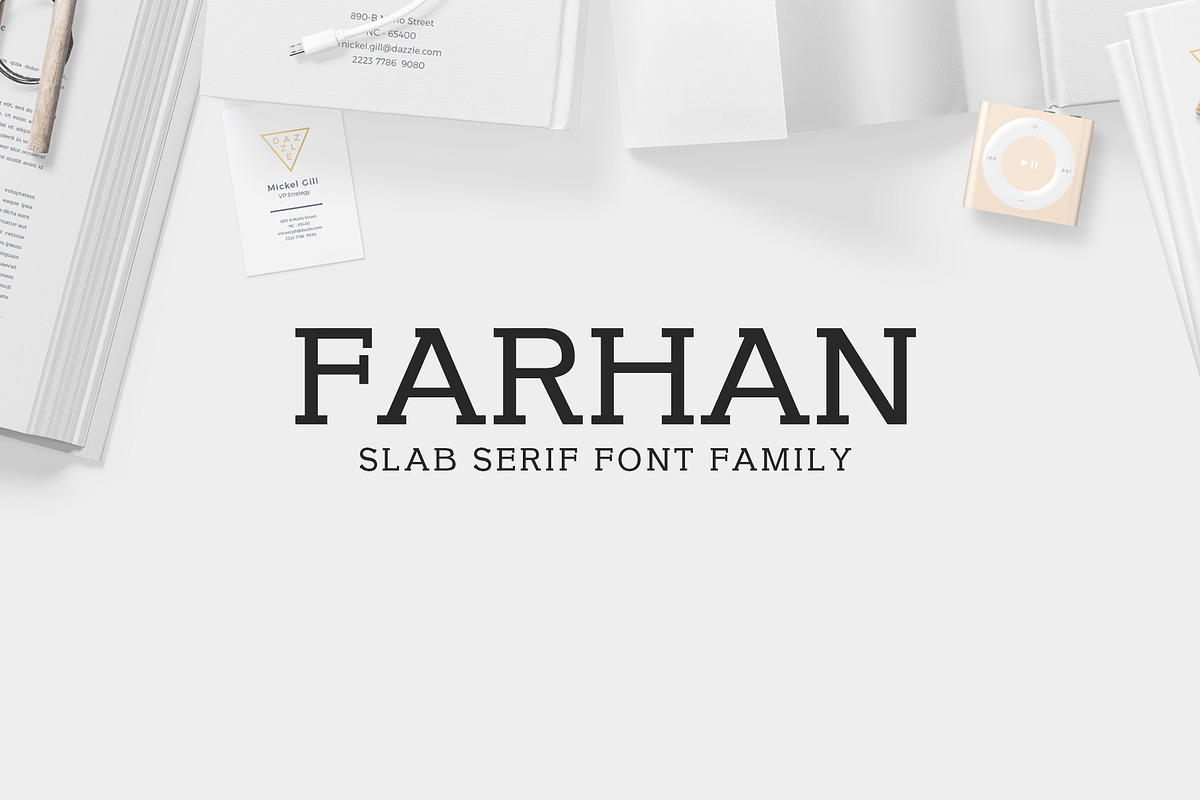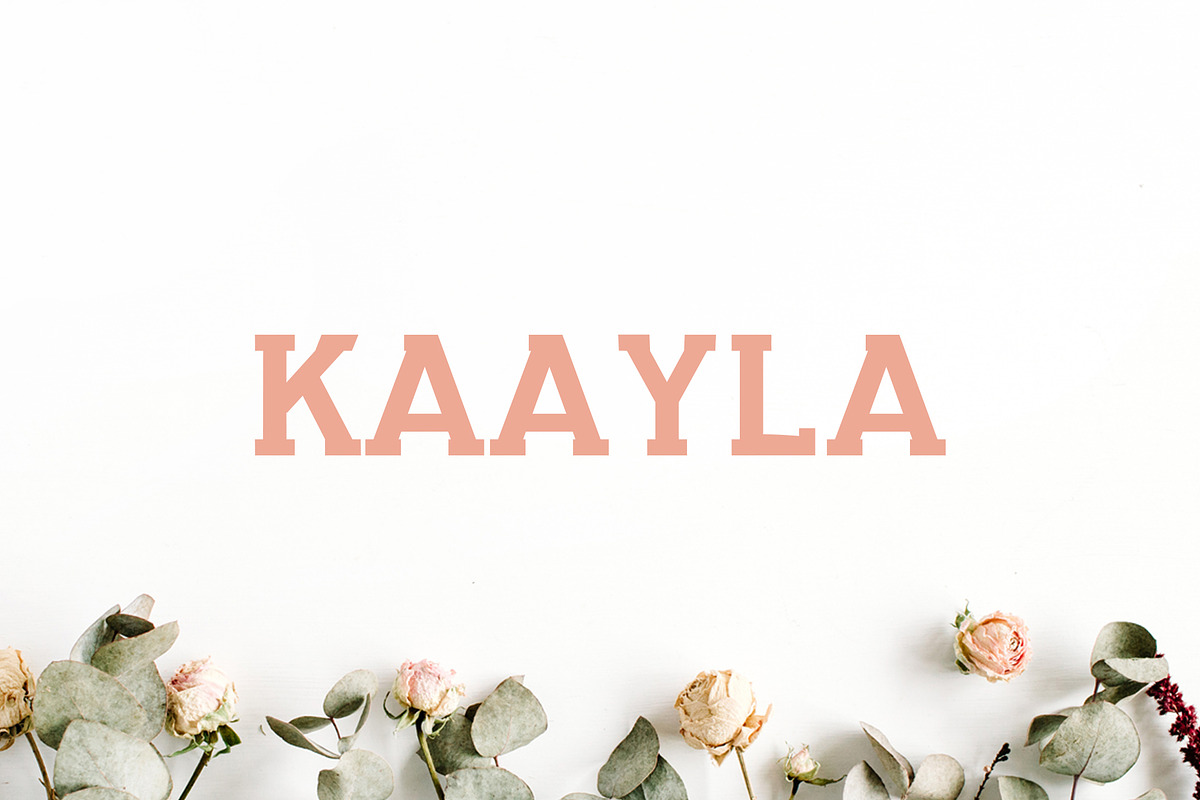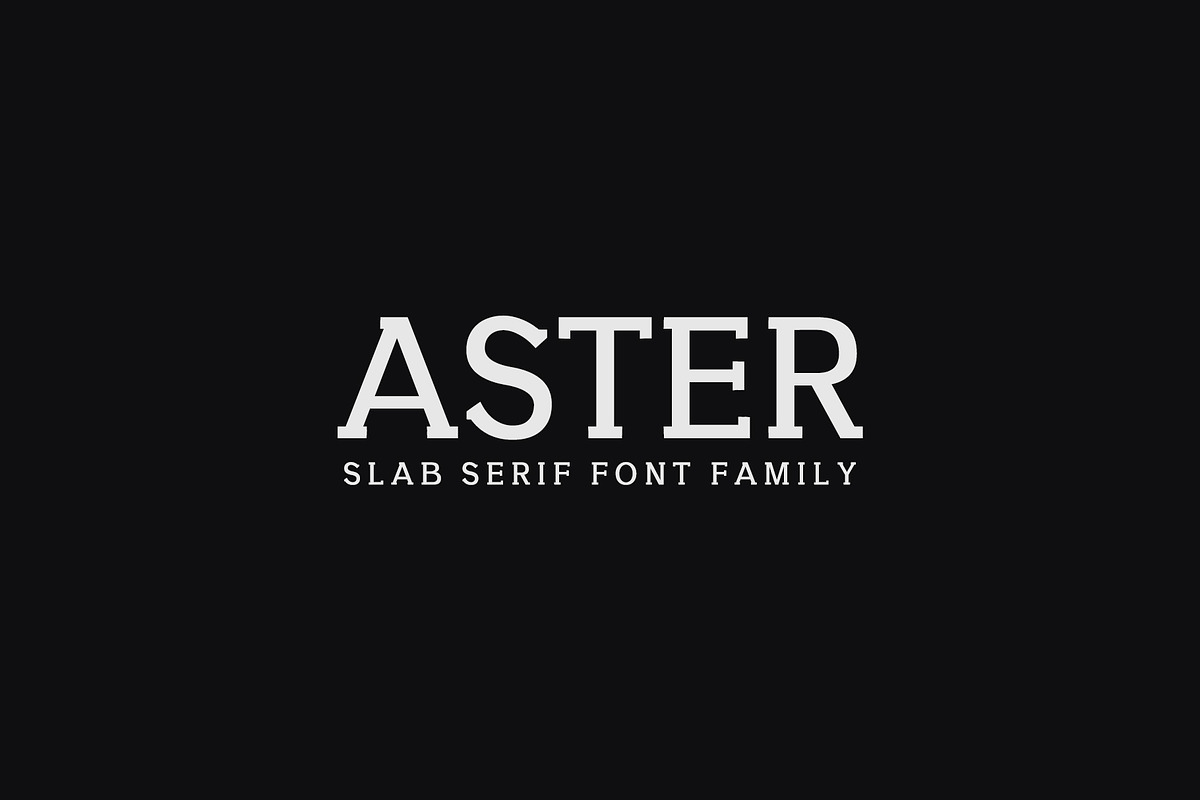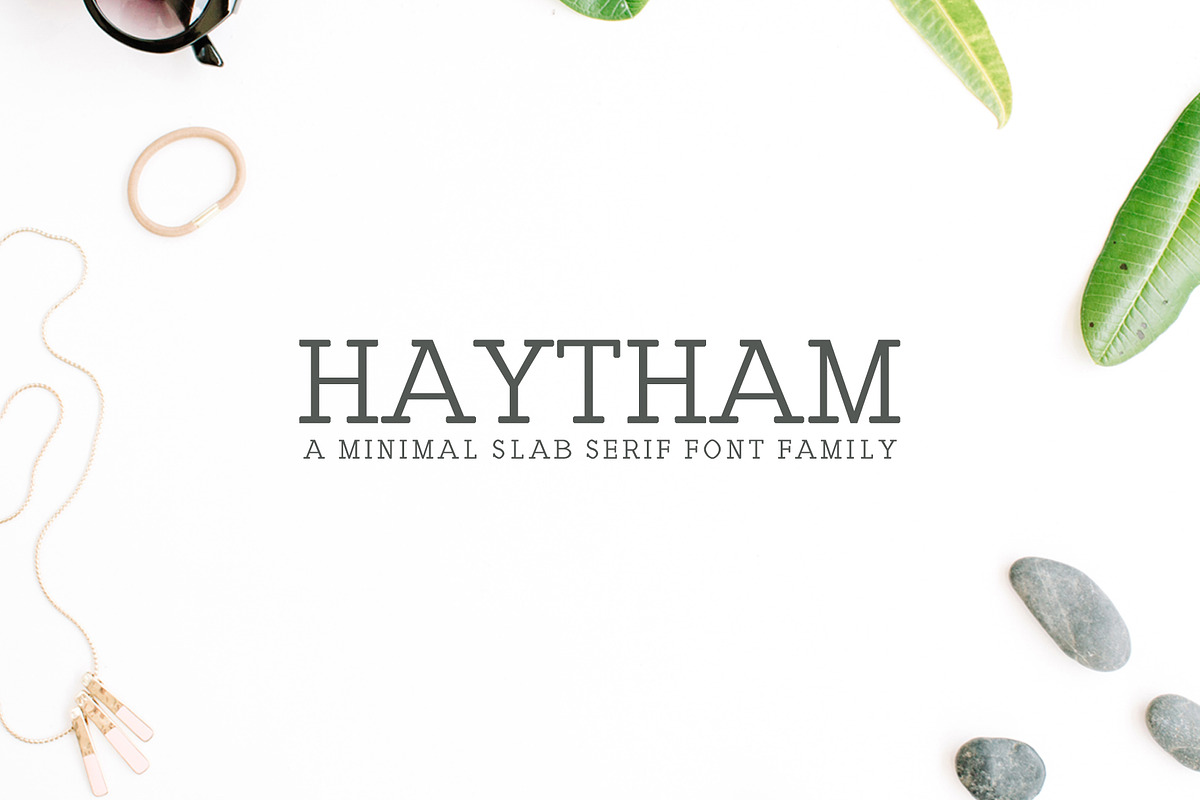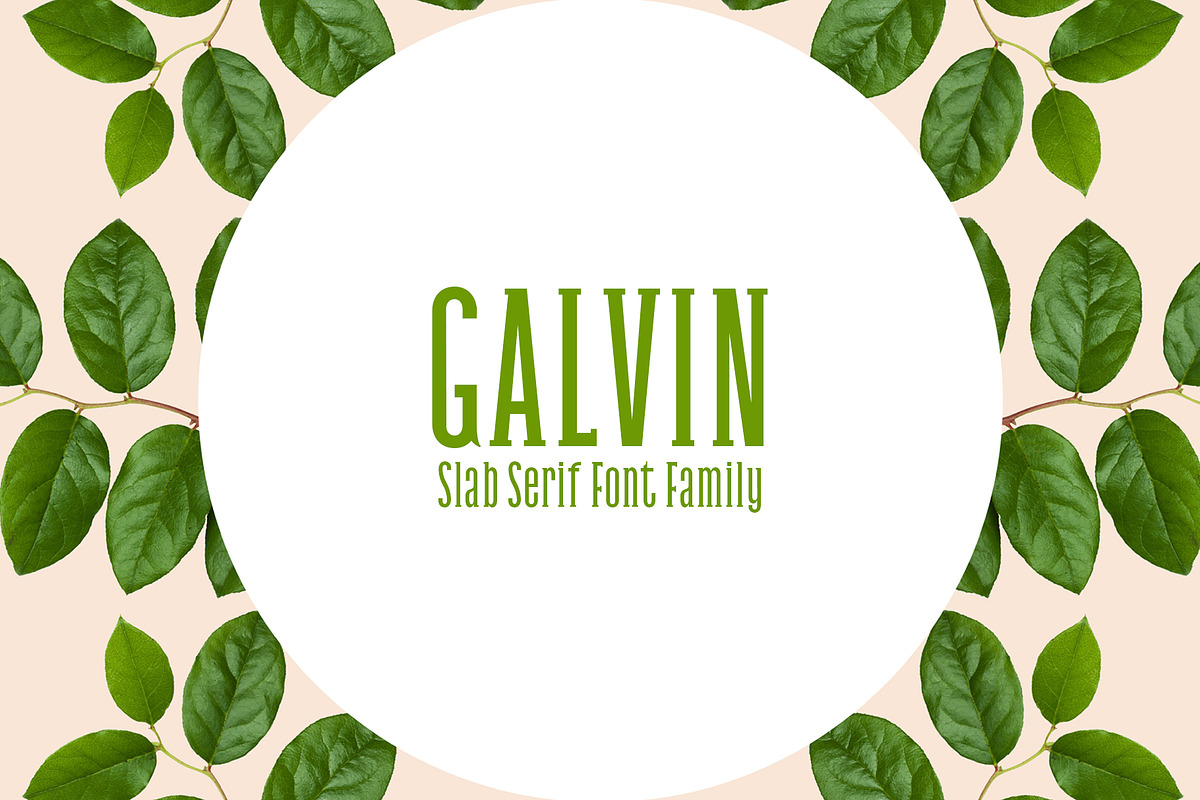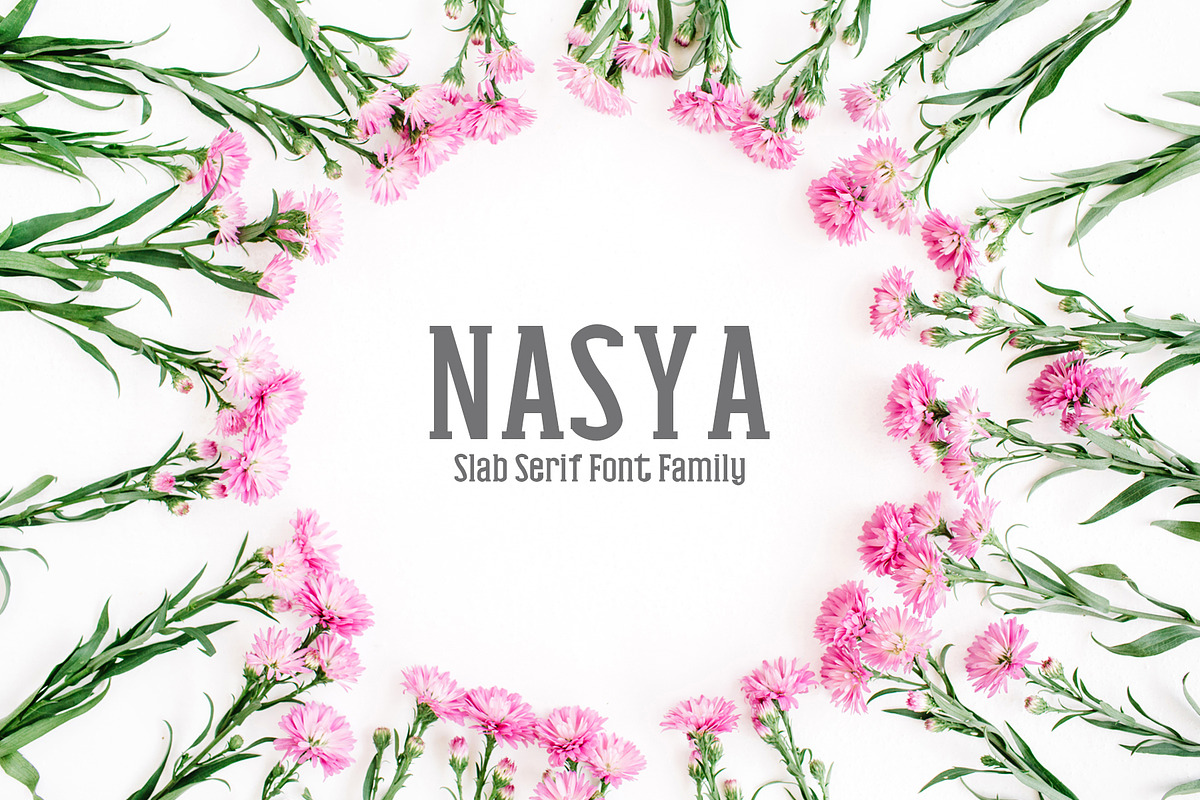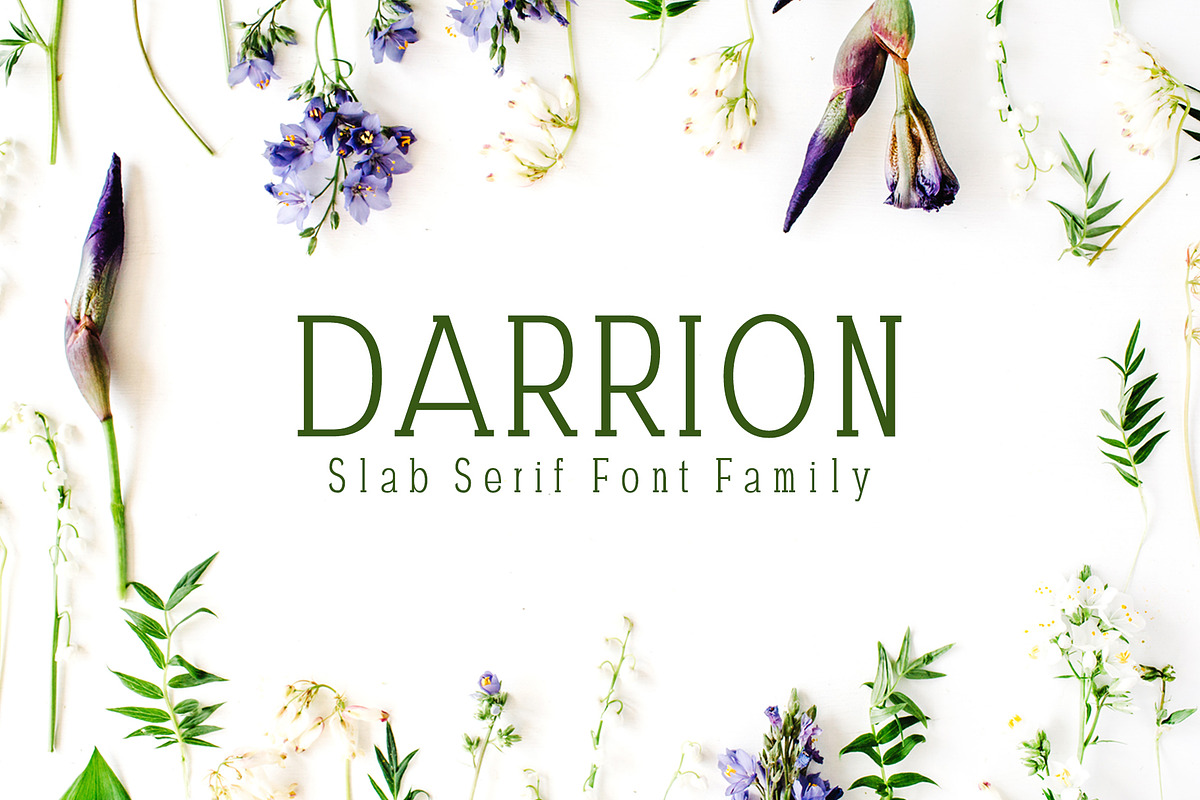
Sale || Slab Serif Font Bundle
Checkout our all-time best-sellers Unique Slab Serif Fonts Bundle, they are creative and fresh and they can be used to create awesome resources. Grab them now and start using immediately.
You can use these Slab Serif Fonts in creating brand identities, web design, menus, headings, invitations, creative branding, apparels, packaging, posters, logos, and much more.
With this creative bundle, you will be able to create lots of designs with different themes. So get ready to take advantage of this sale and amazing collection.
Ailish Slab Serif Font Family:
Aster Slab Serif Font Family:
Darrion Slab Serif Font Family:
Farhan Slab Serif Font Family Pack:
Galvin Slab Serif Font Family Pack:
Garvin Slab Serif Font Family:
Haana Slab Serif Duo Font Family Pack:
Haytham Slab Serif Fonts Packs:
Kaayla Slab Serif Font Pack:
Nasya Slab Serif Font Family Pack:
Orrick Slab Serif Font Family: